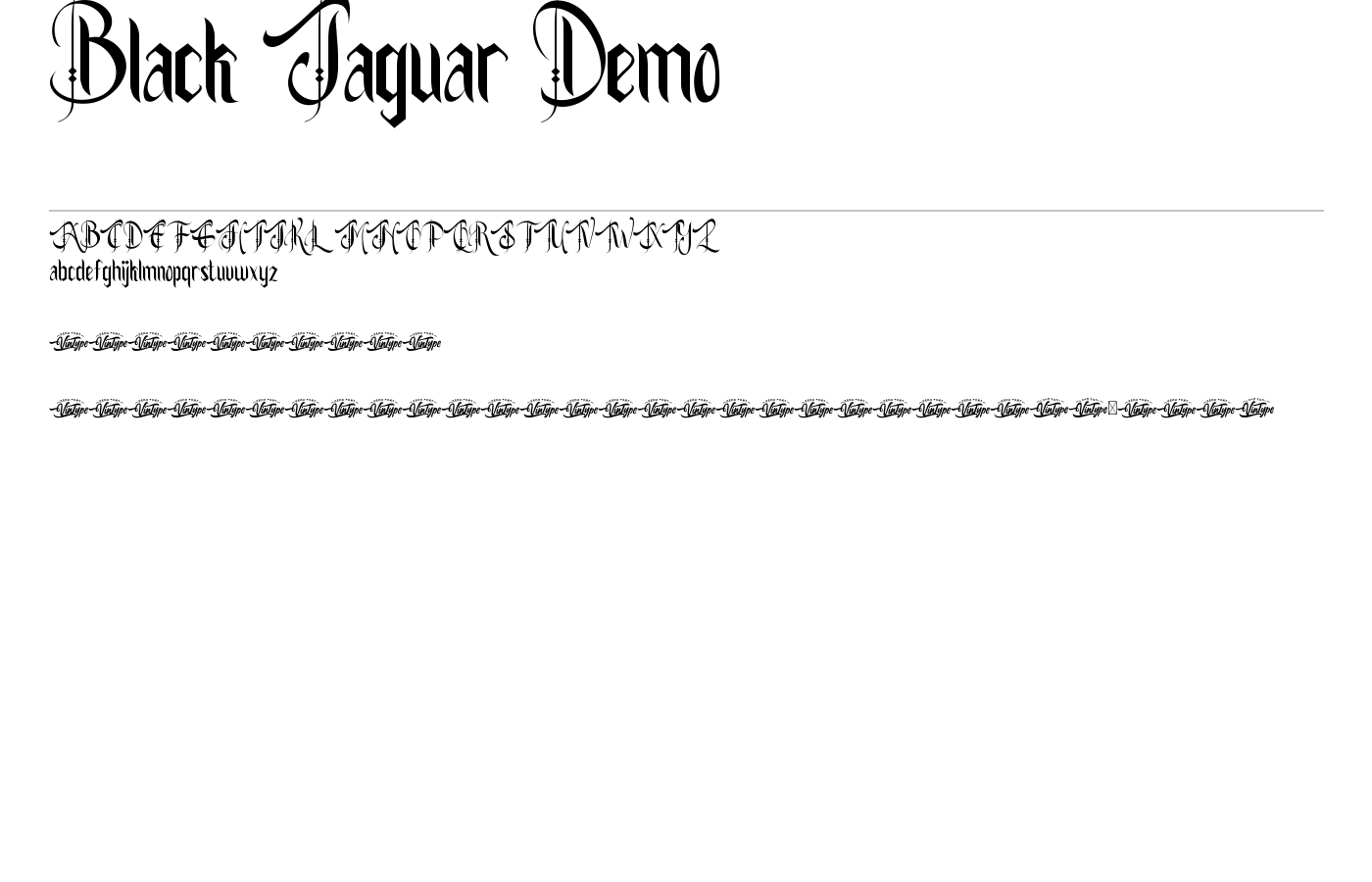
Black Jaguar Demo is a striking blackletter serif font with sharp, intricate strokes and dramatic flair, evoking a gothic and medieval vibe. Its tall, narrow letterforms and ornate detailing make it ideal for creating bold headlines and branding that demands attention with a vintage or edgy character. This font works well for project titles, logos, or designs that want to convey strength, tradition, and a touch of mystery.
Black Jaguar Demo Font
About Black Jaguar Demo Font